Making use of the best Adobe fonts is a great way to find the perfect typeface and get the most out of your Adobe Creative Cloud membership. With over 30,000 fonts from more than 150 type foundries, there's a vast collection to suit every project, from large-scale client work to personal designs.
Whether you're looking for classic fonts or unique foundry typefaces, Adobe Fonts offers a variety of classifications and tags to find just what you're looking for. But with so many fonts to choose from, it can be hard to make a choice, which is why we've collected some of our favourite typefaces to inspire you.
The best Adobe fonts
01. Kuhlman Variable by David Jonathan Ross
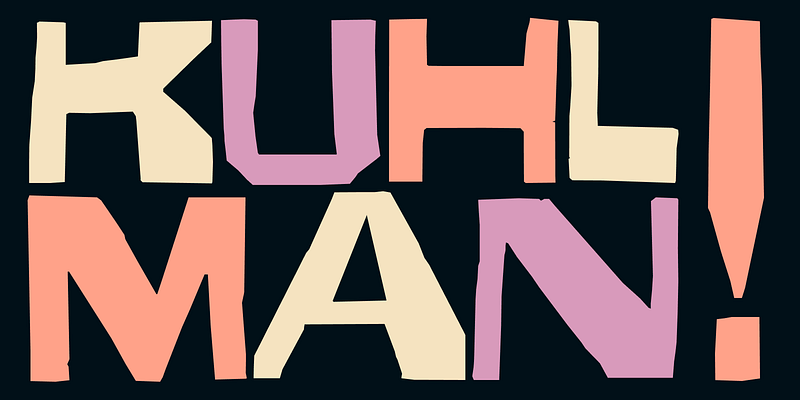
Designed by David Jonathan Ross of DJR, Kuhlman Variable is a playful font inspired by the book covers of graphic designer Roy Kuhlman. The font was designed in collaboration with Steven Brower and Craig Welsh, commemorating the publication of Brower’s monograph, “Roy Kuhlman: Reluctant Modernist”.
02. Early Sans Variable by Character Type
Early Sans was inspired by the metal type Breite Grotesk, adopting its softness but with the forms and proportions of a modern sans. Character Type recommends it as a companion to Late Serif since they're distantly associated by design but closely related technically, with the same vertical metrics, glyphs and corresponding styles.
03. Strelka by Dave Roland
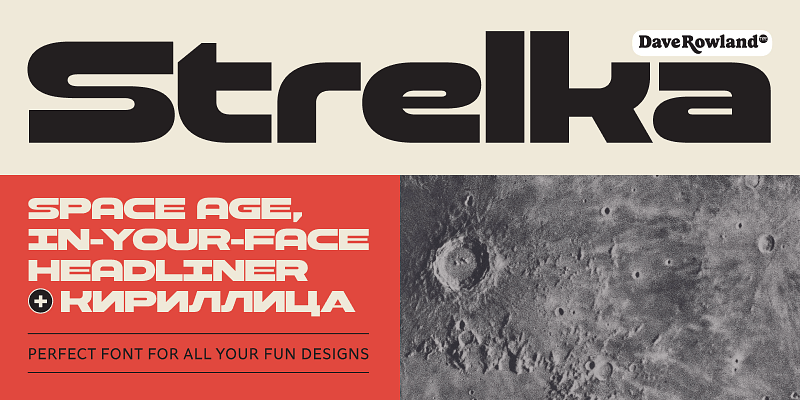
Created by type designer Dave Rowland, Strelka is an ultra-modern space-age-inspired headline font. The design provides small caps, various alternates for Latin glyphs and even automatic fractions for cookbooks.
04. Input Mono by David Jonathan Ross
An excellent typeface for code, Input Mono was designed by David Jonathan Ross. Part of the Input family, it takes its inspiration from fonts designed for games consoles but without the technical limitations that constrain the fonts when in these contexts, making it delightfully useable. Ross designed it as a bitmap font originally, and subsequently drew it over the 11 pixel grid. We love the generous spacing and large punctuation of this super-stylish font.
05. Marshmallow by Neil Summerour
The Marshmallow font family includes Marshmallow Fluff and Marshmallow Script, both of which will add a fun and relaxed feel to your designs. You won't want to be writing any essays in this font, but it's ideal for headers or posters. It was created by type designer, lettering artist, calligrapher and designer Neil Summerour.
06. Noto Serif
When you just need a simple yet elegant serif, Adobe Fonts has plenty of options, including Noto Serif, which is a Google Font. There are over 60 different weights, too, including bold and italic, and some nice details on descenders.
07. Operetta by Synthview
The Renaissance-inspired elegance of Didot and Bodoni has been refreshed for modern applications by the French foundry Synthview via the Operetta font family. Coming in eight weights – from Extralight through to Black – it has gorgeously smooth curves and razor-thin serifs.
Synthview’s Jan Tonellato has sculpted some beautiful swashes for it, there are five optical sizes and for those who love character detail, the lowercase A is marvellously unique. The contrast is so massive at Ultrabold and Black weights, you may never need Mastodon if you opt for Operetta.
08. Viktor Script by OH no Type Company
The OH no Type Company is a relatively new foundry mainly specialising in pretty wild display typefaces, playing with reversed contrast, variable widths and so forth. However, its Viktor Script is breath of fresh air when it comes to type with handwritten appeal.
All too often, script fonts get carried away with swooshes and flourishes just like actors trying to bring personality to their roles by adding ham. Viktor Script, on the other hand, is a purposeful script font ideal for succinct messaging with a personal feel, while not overdoing it. Bravo, Oh no. Bravo.
09. Tenso by Jos Buivenga
When you just want to create legible text, Tenso is a great option. This sans serif has a higher than normal stroke contrast and has character, while feeling quite classic. It's ideal for body text, but could also work at bigger sizes. It's balanced, sharp and there are 10 fonts in the family, created by Jos Buivenga.
10. Adobe Caslon by Carol Twombly and William Caslon
This timeless classic is a favourite in the world of publishing, bringing an authoritative and cultured look and feel to the page. It’s highly legible at all weights and sizes, which is why it can be used for everything from front cover display type through to body copy.
The six Caslon fonts within Adobe Caslon were redrawn in 1990 by Carol Twombly, who modernised it based on samples dating back to around 1725, created by the English gunsmith and typographer William Caslon. He, in turn, was inspired by printers on the Continent, in particular the Dutch. We think Caslon is essential in everybody’s font collection.
Activate Adobe Caslon via Adobe Fonts
11. Alegreya by Juan Pablo del Paral
Within Adobe Fonts there are plenty of typefaces designed for on-screen applications, suitable for everything from UX design to body copy on websites. Often you’ll want a sans serif in these situations, but Alegreya is a font family with robust yet classy serifs that defies convention.
When you’re tired of your Miller or Georgia, this is a screen-friendly and impactful choice. It may surprise you to find an open-source Google Font within Adobe Fonts, but it’s there alongside all the others, with the same licensing conditions. Alegreya was created by Argentinian designer Juan Pablo del Paral of Huerta Tipográfica.
Activate Alegreya via Adobe Fonts
12. Lo-Res by Zuzana Licko
It’s nearly 40 years since the advent of home computers so using a pixel-based typeface seems almost primaeval these days. Lo-Res was created by Emigre's Zuzana Licko back in 1985, with an update in 2001. It smooths over the coarse sterility of early bitmap fonts, making them seem soft, approachable and perhaps a bit more fun than they really were.
In all, the Lo-Res family includes 25 fonts, and if a project comes up where you can use them, you’ll find they’re a lot of fun. Why not throw in an 8-bit palette while you’re at it? Emigre has shared a 1990 video it created that deconstructs pixel fonts – it’s worth checking out.
Activate Lo-res via Adobe Fonts
13. Merriweather by Eben Sorkin
This versatile serif feels modern without labouring the point. Its Light Regular weight is perfect for body copy in magazines or company reports, the italic versions have a gentle elegance to them and UltraBold Regular forms a serious header font for current affairs publications.
When text standards like Times and Garamond are leaving you feeling uninspired, whip up a typographic storm with Merriweather. Like Alegreya, Merriweather is also a Google Font.
Activate Merriweather via Adobe Fonts
14. DIN Condensed by Paratype and Deutsches Institut für Normung
It may seem odd to include something as specific as a condensed sans serif font on a best-of list, but if your job is to create web banners, you’ll know the value of DIN Condensed. It’s superb for fitting copy in confined spaces – more words and the text doesn’t have to feel clipped or abrupt.
Foundry Paratype has digitised DIN and claims that it was influenced by Russian constructivism. That might be the case, but it was designed in Germany in the early 20th century for clear and efficient signage in railway stations and on the roads. Today it’s excellent for directing traffic, so to speak, on the internet.
Activate DIN Condensed via Adobe Fonts
15. Anonymous by Mark Simonson Studio
Here’s one for the coders. The Anonymous family includes four fixed-width fonts. Although it was designed with code panels in mind it can be used creatively as well.
It looks great on websites and with its smooth, contemporary feel Anonymous makes a good substitute in situations where you might be tempted to use a typewriter font such as Courier – hence it has bold and italic versions.
Activate Anonymous via Adobe Fonts
16. Abolition by Fort Foundry
This condensed serif gets lovelier the more you use it. Like DIN Condensed, it’s great for online banners and so forth and with its corners roughly cut at 45-degrees it feels like it means business.
However, if you don’t want to scare the chickens, use the Soft version of the font which brings a little bit of rounding to those corners making it feel a lot more comfortable in gentler settings without losing impact.
Activate Abolition via Adobe Fonts
17. Lust by Positype
No best-of fonts list is complete without a stunningly luxurious display typeface and Lust lives up to its name by leaving you wanting more. And there is more, too, because its Script and Stencil versions are equally desirable.
It’s not all about the contrast either – the way the lowercase c and r curl back in on themselves is truly alluring. Lust is ideal for work involving high-end brands wanting to emphasise fashion with a sensual touch.
18. Neue Haas Grotesk
Concluding our list of the best Adobe Fonts is this tribute the original Helvetica. Neue Haas Grotesk was actually the original name of the famous Swiss sans-serif developed by Max Miedinger and Eduard Hoffmann. This font is designer Christian Schwartz's attempt to recreate it, since Helvetica itself has seen several changes as part of its evolution from pre-digital to digital use. It's available in both text and display optical sizes with 22 styles in total.
Activate Neue Haas Grotesk at Adobe Fonts
What is Adobe Fonts?
Adobe Fonts is an online service offered as part of Adobe Creative Cloud that provides subscribers with access to a font library via a single licensing agreement. The fonts can be used directly on websites or synced via Adobe Creative Cloud to applications on your computer. The fonts are all free for anyone who subscribes to Creative Cloud or many of Adobe's individual applications.
How do I activate Adobe Fonts in Creative Cloud?
You can access Adobe Fonts from inside Adobe's apps or online via the Adobe Fonts site.
Once you find a font you like, you can simply click the slider to activate either individual fonts or entire families. These will become available in all Adobe apps, as long as you're signed in to Creative Cloud.
When opening a project with fonts that you don’t own, you will be given the option of Resolving Fonts, which syncs any matching fonts from Adobe Fonts. All fonts are included with any Creative Cloud subscription and there are no limits on how many you can use at once. If you need more help, we also have a specific guide to how to add fonts to Photoshop.
Are Adobe Fonts OK for commercial work?
Yes, if you subscribe to Creative Cloud you automatically have a licence to use Adobe Fonts for both personal and commercial work (see the question below regarding the use of Adobe Fonts by clients).
Does my client need a licence for Adobe Fonts?
A question that often comes up regarding font licensing with Adobe Fonts is whether the designer's licence to use the fonts via their Creative Cloud subscription also covers their customers' subsequent use of the finished design assets, or if the client needs a separate licence.
If you create graphics or documents that have rasterized or properly embedded font data, for example PDF, JPEG, or PNG, the client does not need any additional licence to use the finished assets. Things change if the clients needs to be able to edit the designs. This would require them to have the font installed on their own machines, which would require them to have their own licence, be it via Creative Cloud subscription or a desktop license purchase.
Note that if the fonts will be used on a website, you cannot use your own Creative Cloud subscription to host web fonts for clients. For this use, the client will need their own Creative Cloud subscription. You can learn more on the Adobe Fonts licensing page. Also see our guide to font licensing for designers.
What happens to Adobe Fonts if you cancel a Creative Cloud subscription?
Adobe Fonts are a part of your cloud subscription via Creative Cloud. Unless you purchased the individual fonts outright, any Adobe fonts will disappear from your machine if you cancel your Creative Cloud subscription. Even if you still have the files, you will lose the licence for commercial usage.
What's the history of Adobe Fonts?
Adobe Fonts was previously called Typekit, which was created in 2009 by Small Batch. Typekit was bought by Adobe in October 2011 and changed its name to Adobe Fonts in October 2018.
Is Adobe Fonts worth it?
Paying for an Adobe subscription may not be worth it for the fonts alone as there are other sources of fonts out there, including free options like Google Fonts (also see our pick the best free fonts in general). However, Adobe Creative Cloud has many other selling points and contains many industry-standard programs (see our Adobe software list).
If you're a professional graphic designer, it is likely that you will want to use Adobe products (see our pick of the best graphic design software), in which case it makes sense to take advantage of Adobe Fonts when there are appropriate fonts for your work.